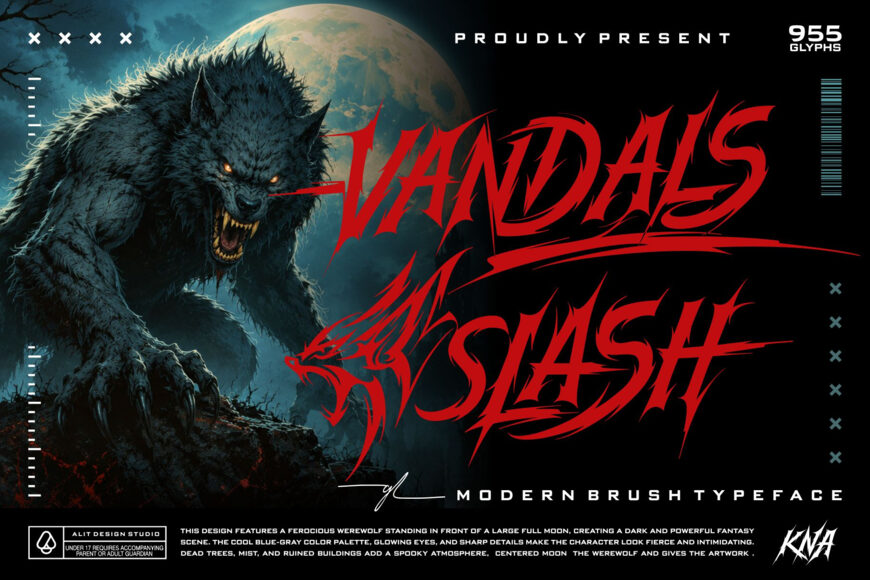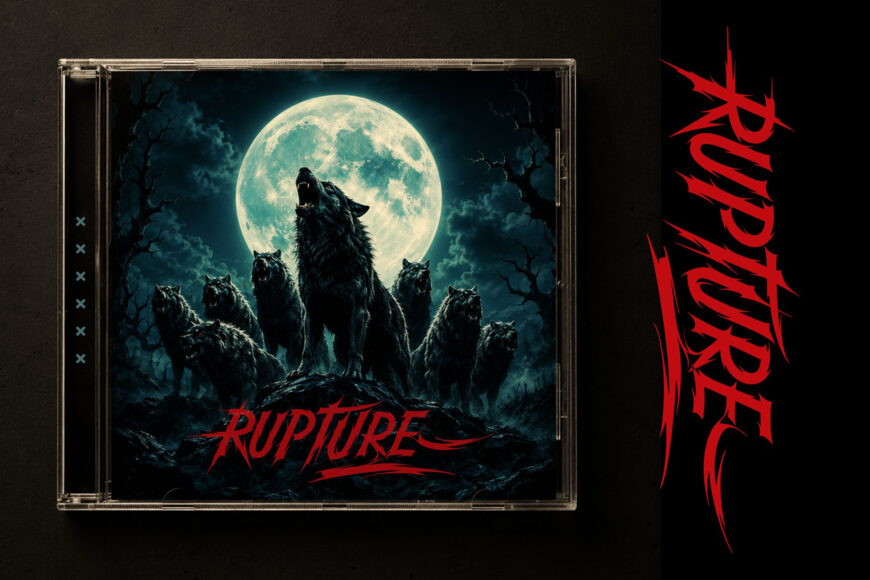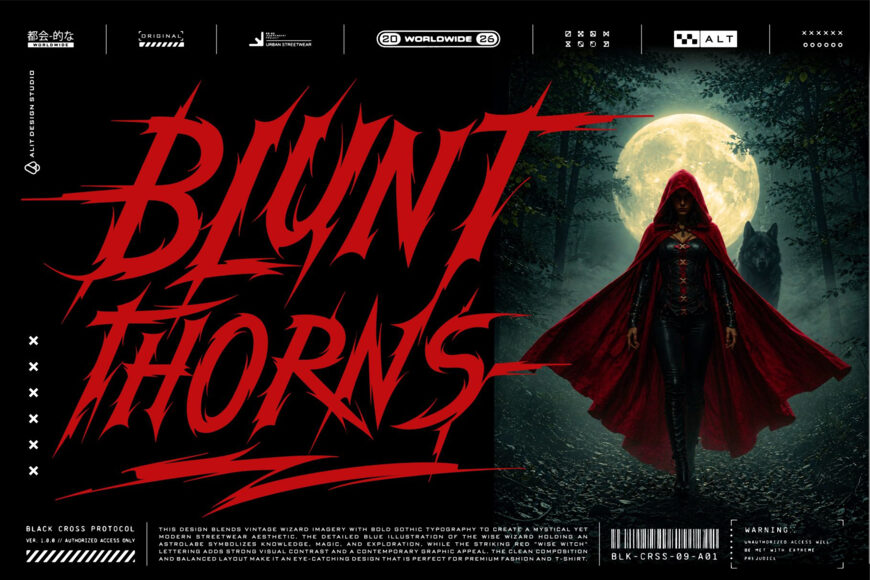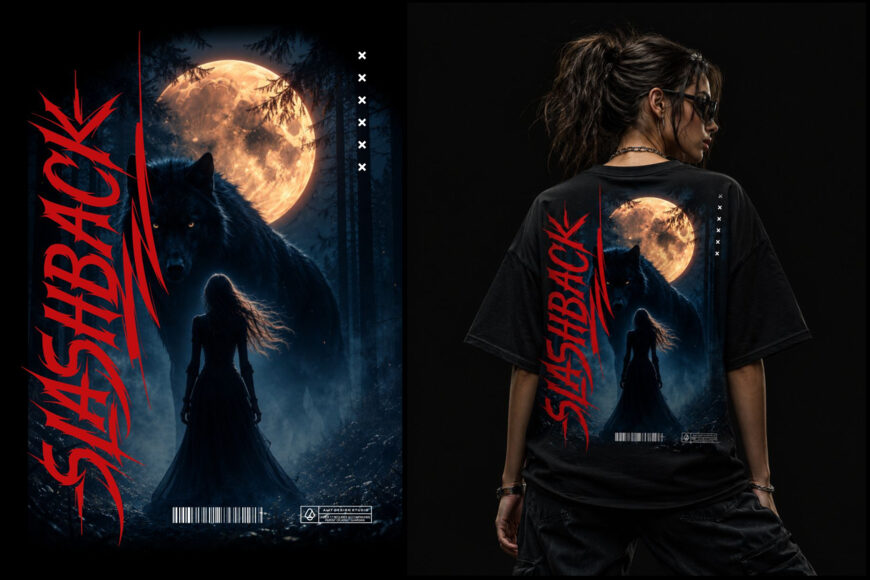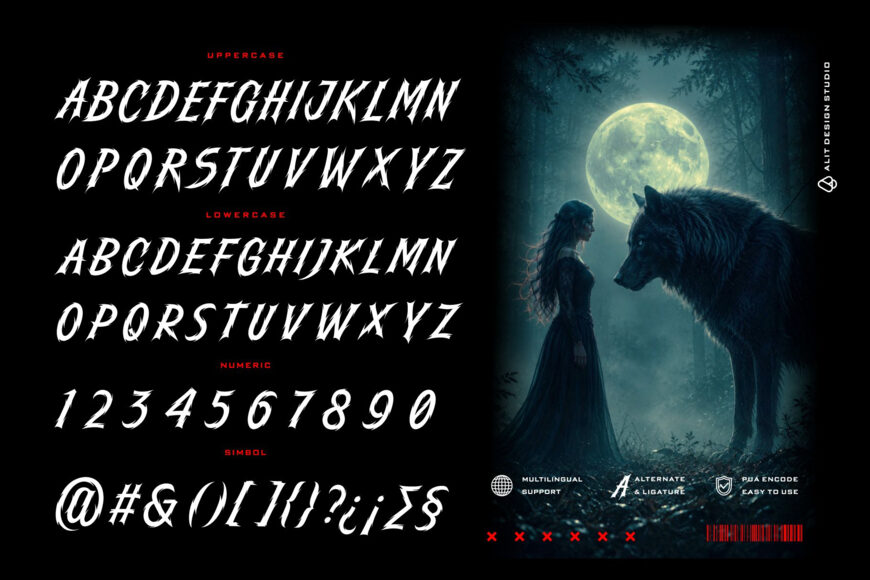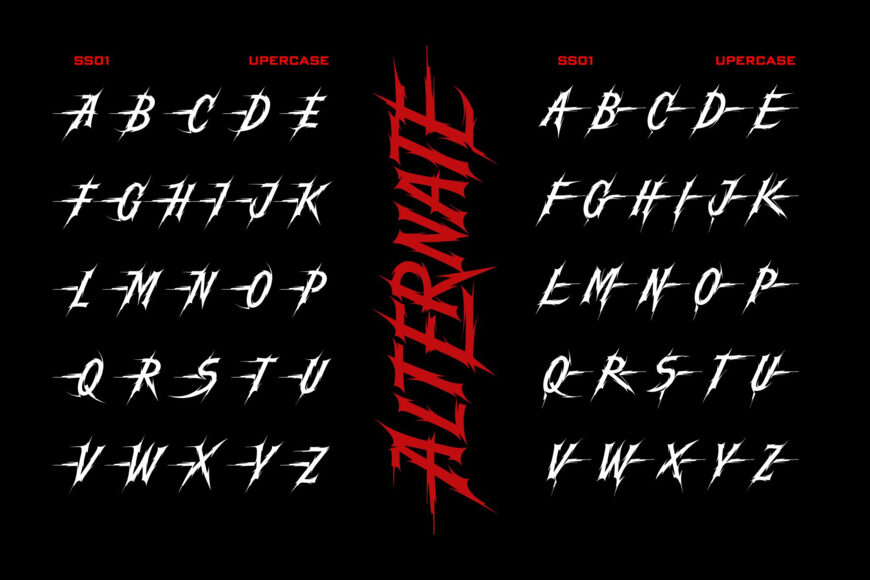
Unleash raw energy and fierce creativity with Vandals Slash, a modern brush typeface designed to make a massive impact. Featuring sharp, aggressive strokes and a dynamic hand-drawn feel, this font is perfectly suited for projects that demand a bold, unapologetic, and powerful presence.
Whether you are designing for a dark fantasy game, an edgy streetwear brand, a heavy metal album cover, or a thrilling horror movie poster, Vandals Slash delivers an intense, gothic, and rebellious aesthetic. Vandals Slash is an absolute powerhouse, packed with a staggering 955 glyphs (paid version) to give you unparalleled creative freedom.